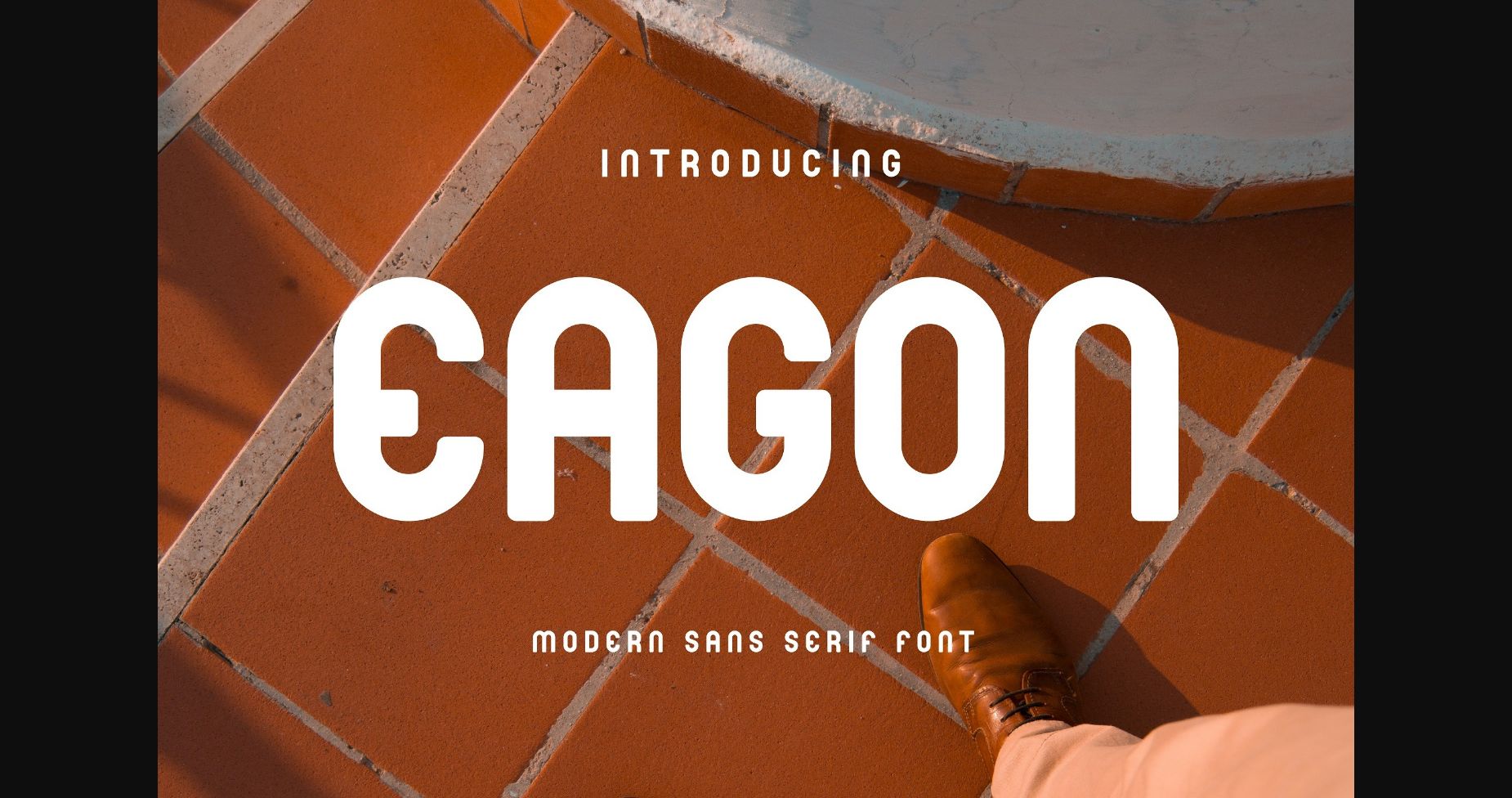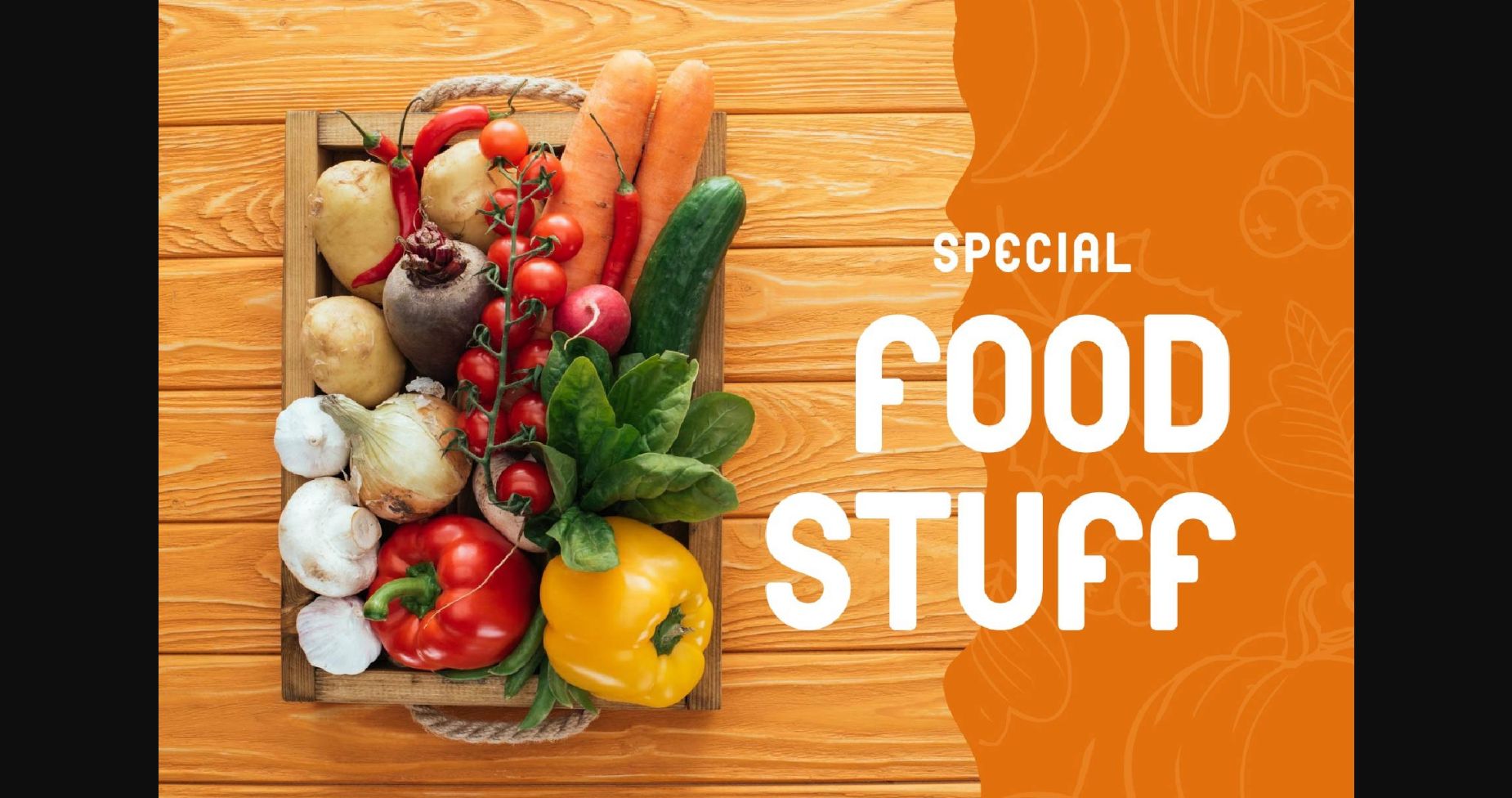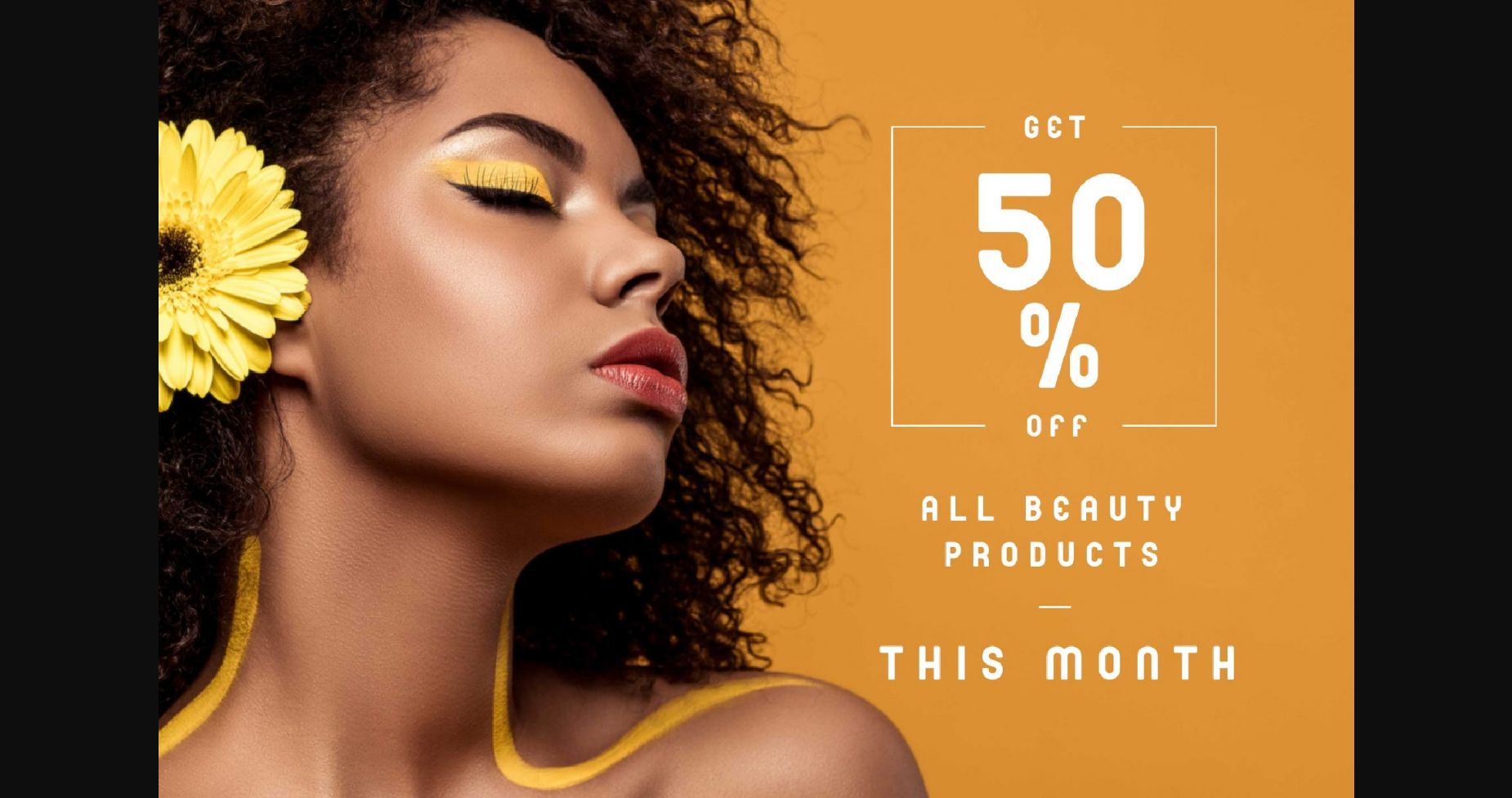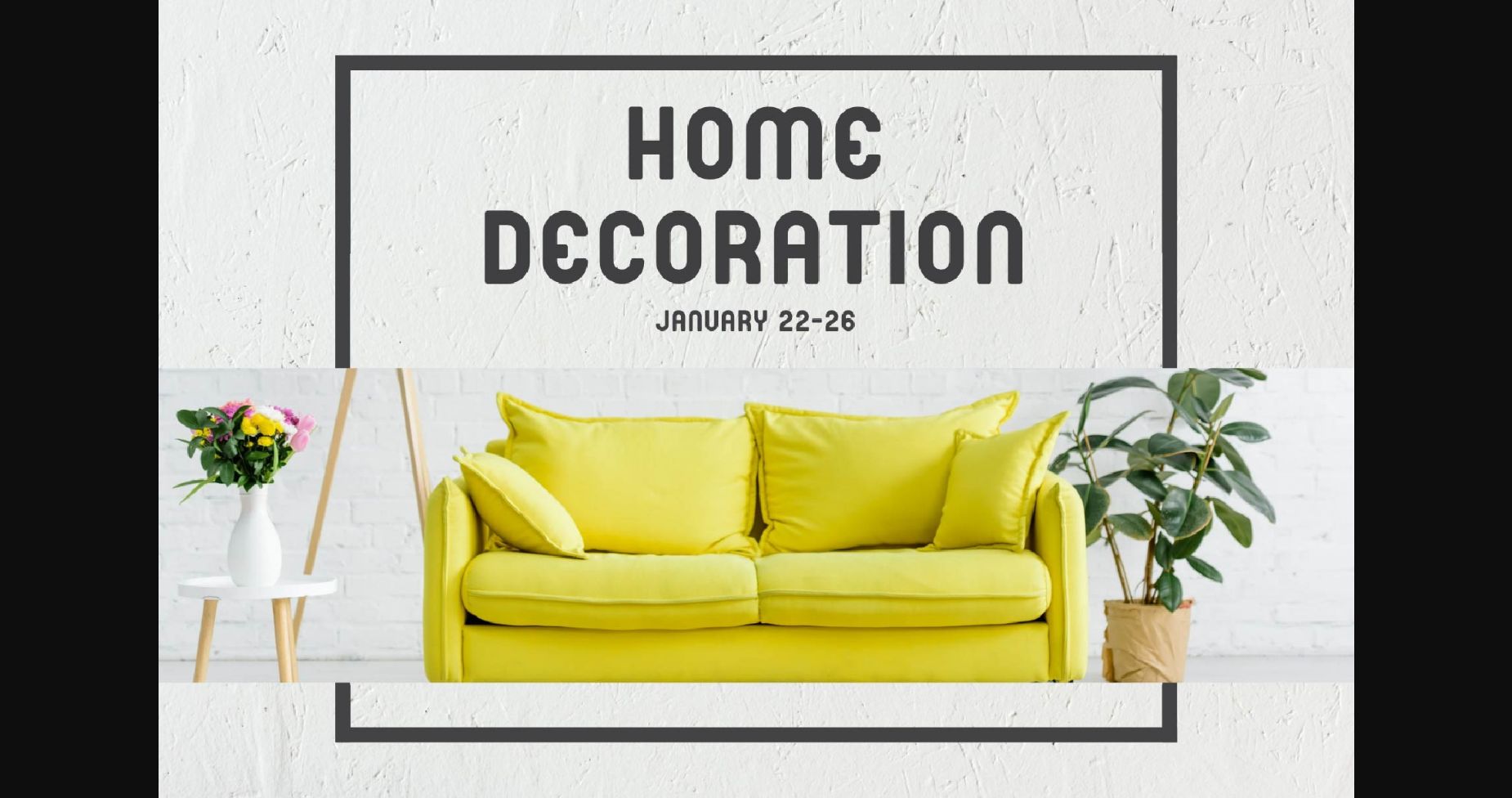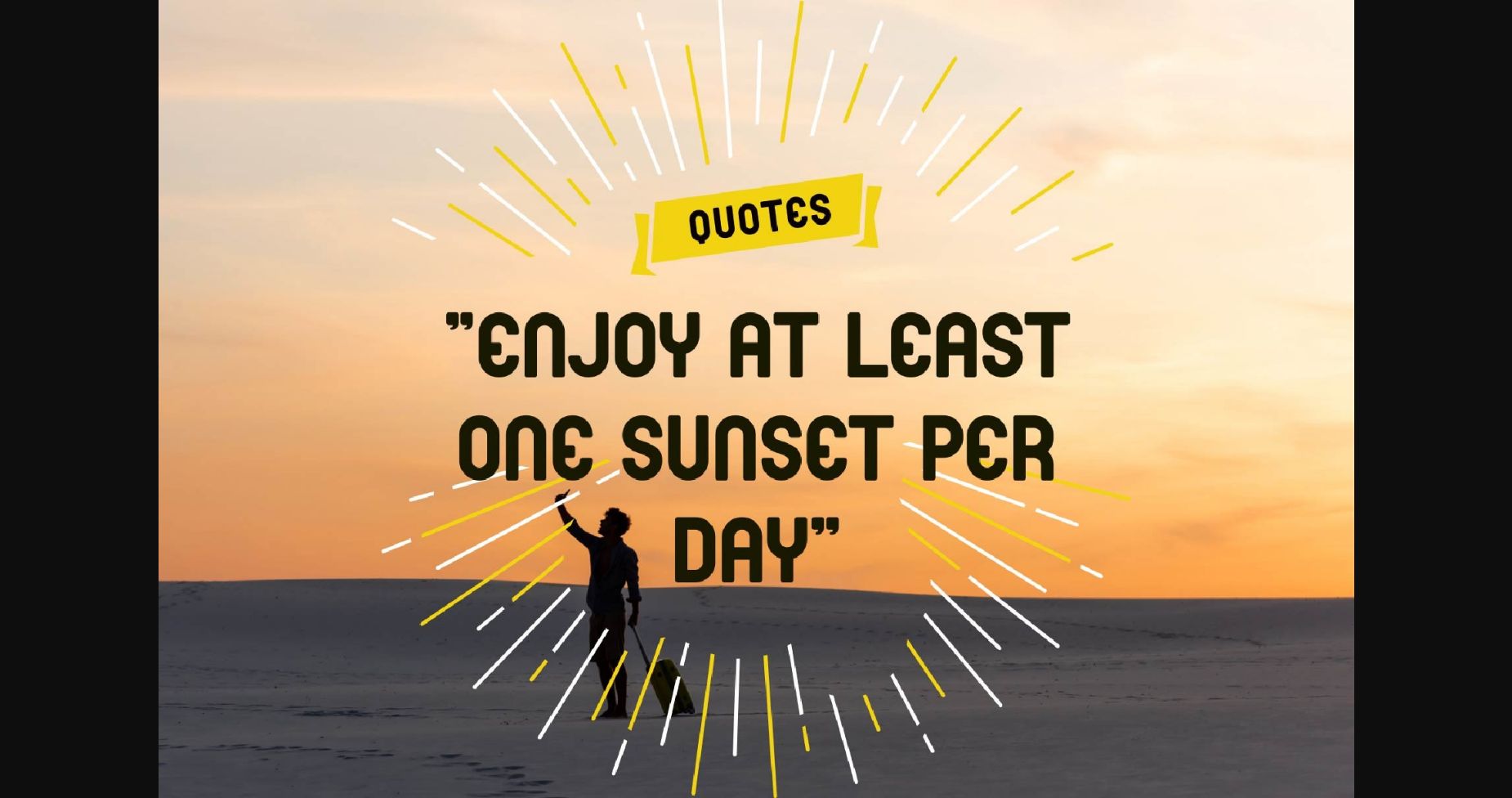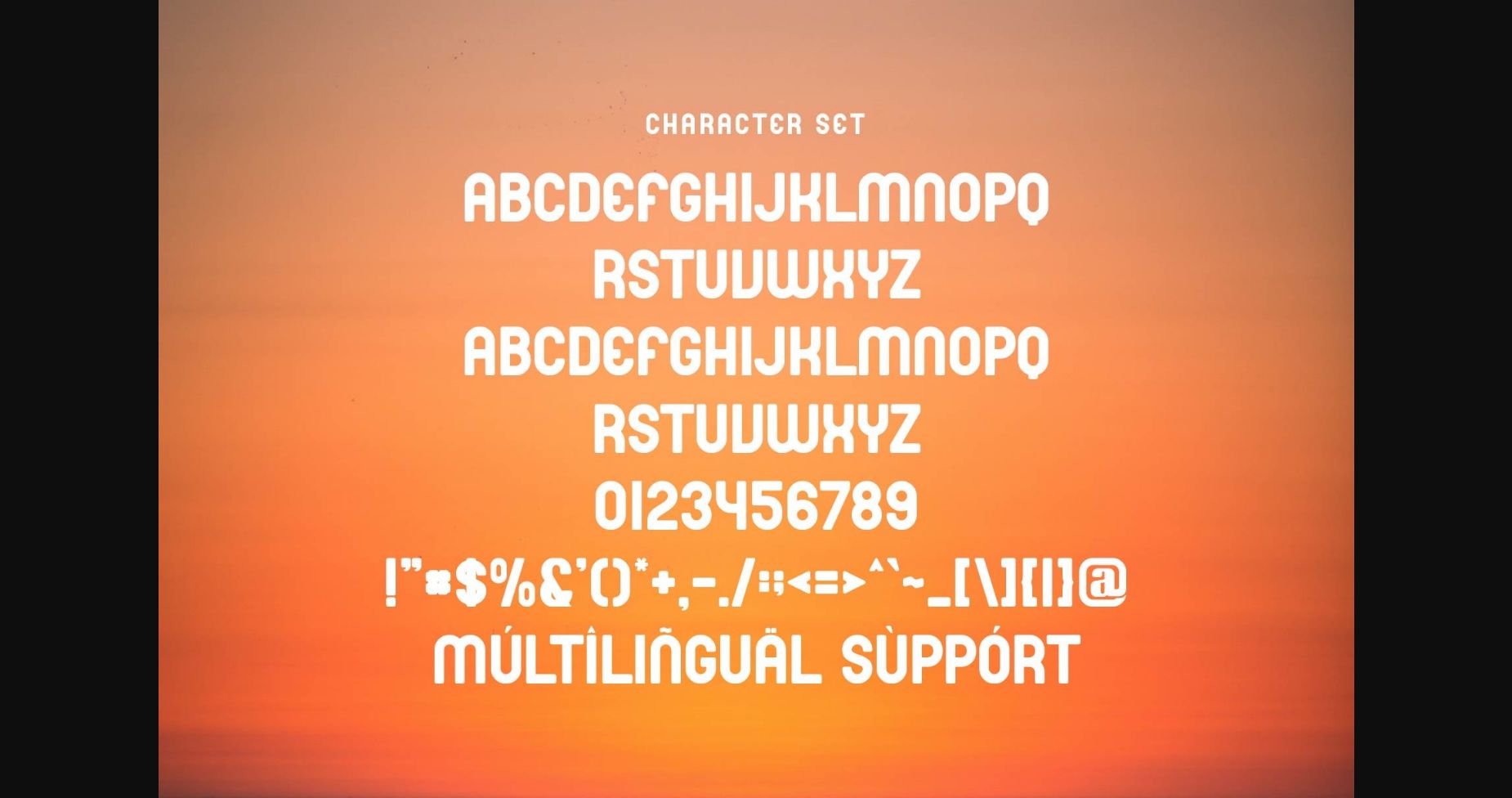
Eagon Font
About Eagon Font
Eagon Sans Font Typeface inspired by the famous minimalist logo is perfect for the purposes of designing templates, brochures, videos, advertising branding, logos, invitation, layout design, elegant crafting, beautiful design, and others.